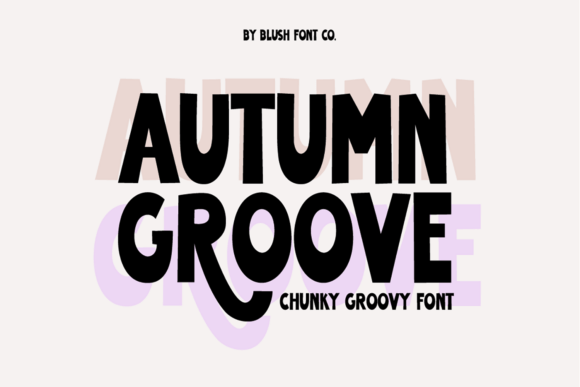
Introducing Autumn Groove Retro Font: The Ultimate Groovy Display Font
Are you looking for a font that embodies the fun, playful, and energetic vibe of the 60s and 70s? Look no further than Autumn Groove, an incredibly bold, chunky, and dynamic retro display font that’s perfect for adding a touch of nostalgia to your designs. In this article, we’ll dive into the features and benefits of Autumn Groove, and explore how you can use it to create stunning visuals that demand attention.
The Groovy Aesthetic of Autumn Groove
Autumn Groove is all about capturing the funky and cheerful energy of the 1960s and 1970s. Its distinctive, oversized letterforms and soft, playful curves are reminiscent of the iconic typography of the era, evoking memories of classic rock posters, vintage advertisements, and retro-themed designs. This font’s unique selling point is its “groovy” aesthetic, which delivers a vibrant, feel-good vibe ideal for projects that need a playful throwback touch.
Perfect for Bold and Memorable Headlines
Autumn Groove is built for impact, making it an excellent choice for loud, memorable headlines and branding. Its chunky and dynamic letterforms demand attention, ensuring that your message gets noticed. Whether you’re designing a poster, t-shirt, or social media graphic, Autumn Groove is the perfect font to make your text stand out from the crowd.
Endless Creative Possibilities
Autumn Groove is a versatile font that can be used for a wide range of creative projects. Here are some ideas to get you started:
- T-shirt designs: Create eye-catching t-shirt designs that are perfect for music festivals, retro-themed events, or just for fun.
- Social media graphics: Add a touch of nostalgia to your social media graphics, making them stand out in a crowded feed.
- Retro posters: Create bold and colorful posters that evoke the spirit of the 60s and 70s.
- Magazine titles: Use Autumn Groove to create bold and attention-grabbing magazine titles that set the tone for your publication.
- Product packaging: Add a playful touch to your product packaging, making it more energetic and eye-catching.
- Logo design: Use Autumn Groove to create a chunky and memorable logo for your contemporary brand.
Why Choose Autumn Groove?
So why choose Autumn Groove over other fonts? Here are just a few reasons:
- Unique aesthetic: Autumn Groove offers a unique and distinctive aesthetic that’s hard to find in other fonts.
- High-energy vibe: This font delivers a high-energy vibe that’s perfect for projects that need a playful and attention-grabbing touch.
- Versatility: Autumn Groove can be used for a wide range of creative projects, from t-shirt designs to magazine titles.
Autumn Groove is a bold, chunky, and dynamic retro display font that’s perfect for adding a touch of nostalgia to your designs. With its unique aesthetic, high-energy vibe, and versatility, it’s an excellent choice for creative projects that need a playful throwback touch. Whether you’re designing a poster, t-shirt, or social media graphic, Autumn Groove is the perfect font to make your text stand out from the crowd.